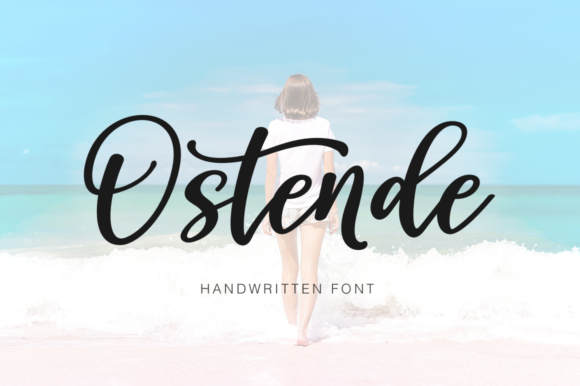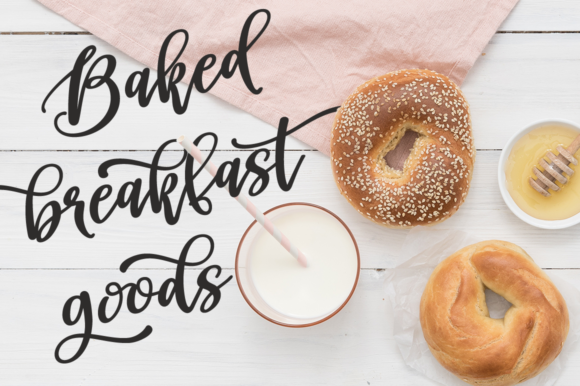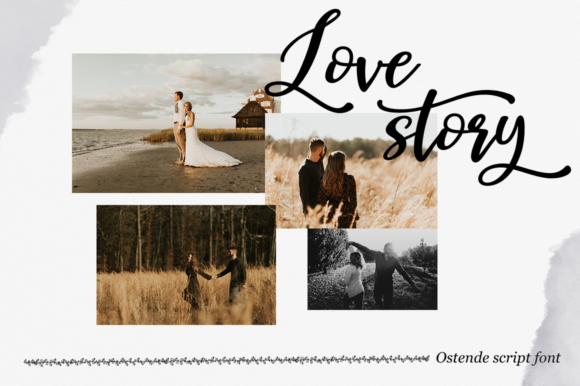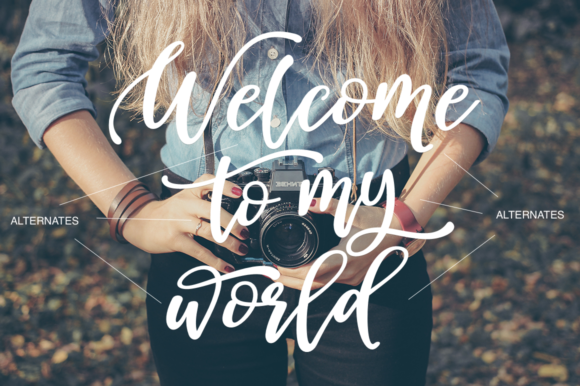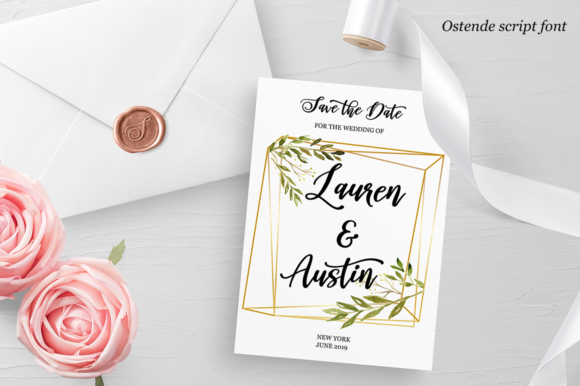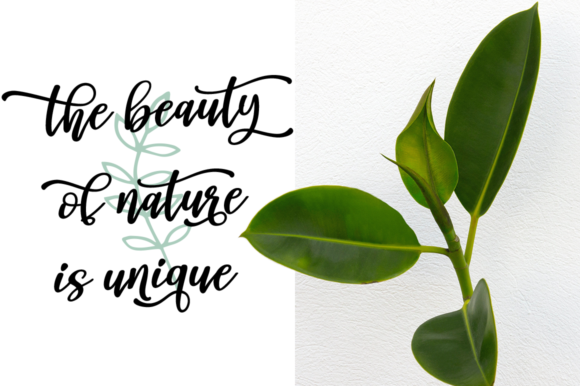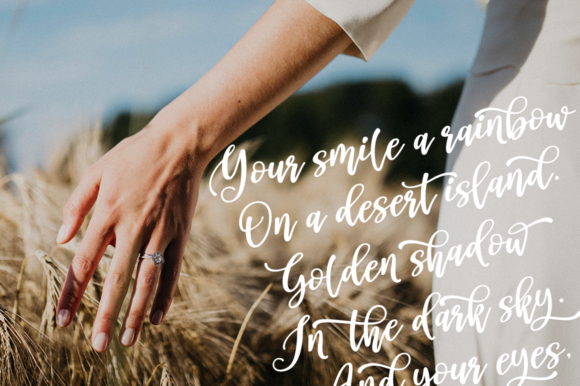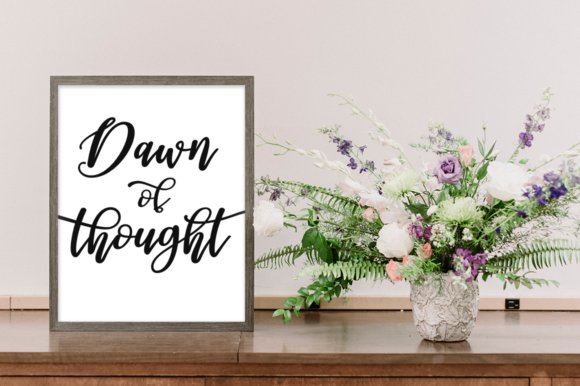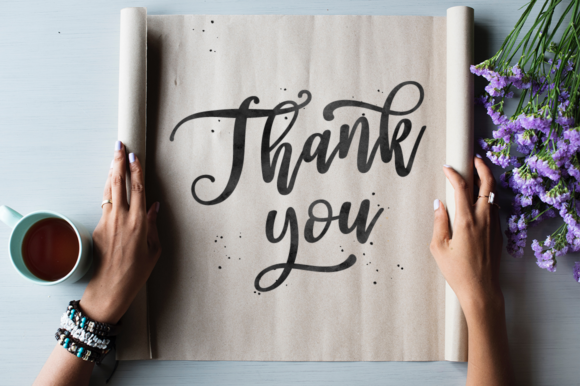
Ostende Font
About Ostende Font
The Ostende is a beautiful handwritten font. It has an elegant style which is perfect for branding, invitations, logos, and much more!